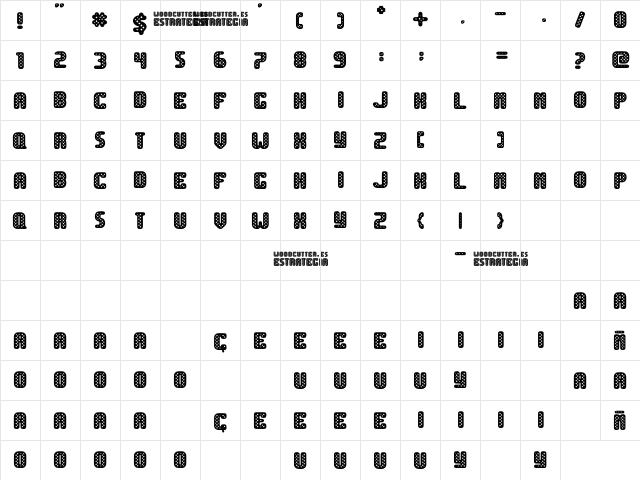
Estrategia Regular
Design Context for Estrategia Typeface
Estrategia is a composed and adaptable typeface that performs quietly and consistently across a wide range of design contexts.